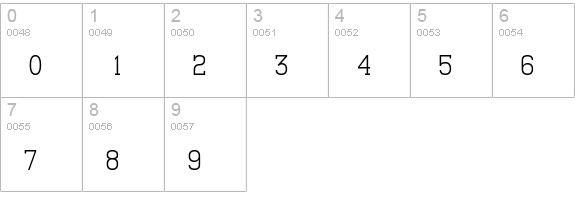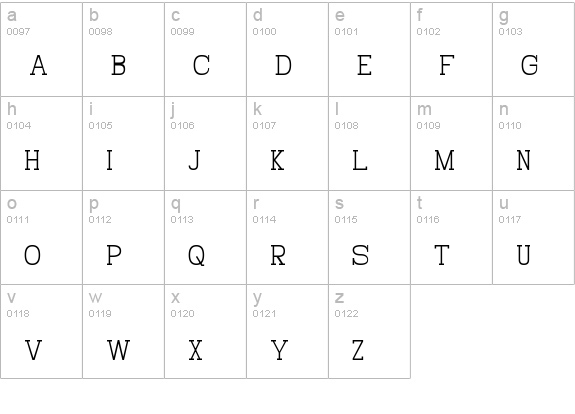
History Repeating Vertical Font Details
History Repeating Vertical font is a captivating and unique typeface that brings a touch of vintage charm to any project. This font features elegant, elongated letters that exude sophistication and style. Perfect for adding a nostalgic feel to invitations, posters, branding, and more, History Repeating Vertical font is sure to make a lasting impression. Best of all, this font is available for free download at FontsMarket.com. Whether you're a designer looking to add a classic flair to your work or simply appreciate the beauty of well-crafted fonts, History Repeating Vertical is a must-have addition to your collection. Download it today and start creating timeless designs with ease!